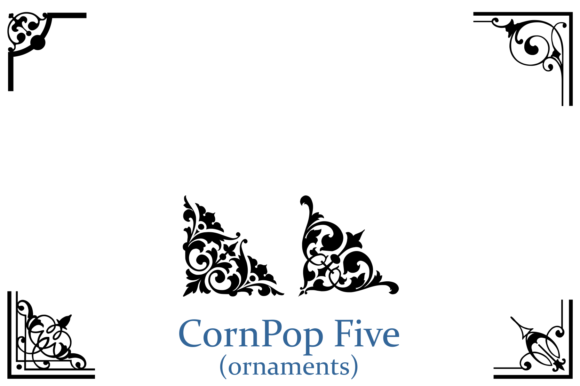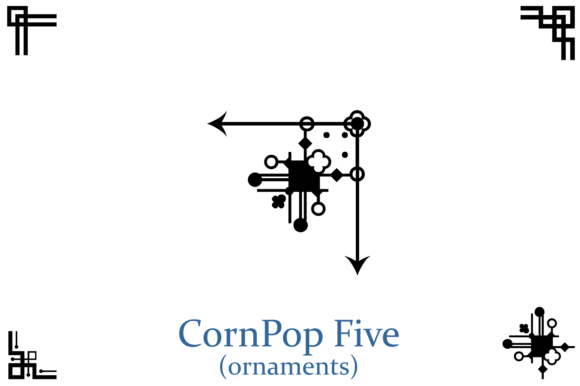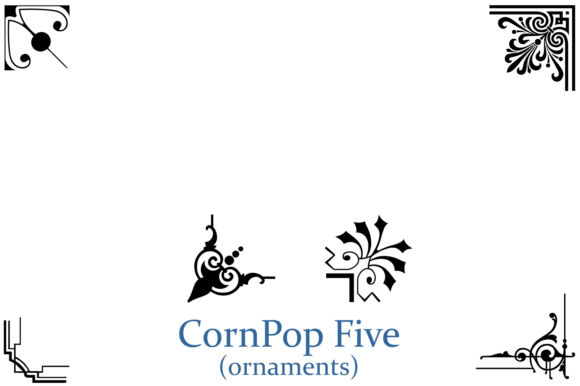
Corn Pop Five Font: A Comprehensive Guide for Designers and Crafters
The Corn Pop Five Font is a versatile and creative font that has gained popularity among designers and crafters. One of its standout features is the inclusion of corner ornaments, which can be used to create beautiful and unique invitations, cards, and other paper crafts. In this article, we’ll explore the Corn Pop Five Font in detail, discussing its features, uses, and benefits for designers and crafters.
What is Corn Pop Five Font?
Corn Pop Five Font is a digital font designed by a renowned font creator. It’s a modern, yet elegant font that features a distinctive and playful style. The font comes with a range of characters, including uppercase and lowercase letters, numbers, and punctuation marks. What sets it apart, however, is the inclusion of corner ornaments, which can be used to add a decorative touch to various designs.
Corner Ornaments: A Unique Feature
The Corn Pop Five Font contains a set of corner ornaments that can be used to create beautiful borders, frames, and other design elements. These ornaments are carefully crafted to match the font’s playful and elegant style, making them perfect for a range of applications, from invitations and cards to scrapbooking and other paper crafts. The corner ornaments are ready-to-use elements that can save designers and crafters time and effort, while also adding a professional touch to their work.
Uses of Corn Pop Five Font
The Corn Pop Five Font is a versatile font that can be used for a variety of purposes. Here are some of the most popular uses:
- Invitations: Create beautiful and unique invitations for parties, weddings, and other special occasions using the Corn Pop Five Font and its corner ornaments.
- Cards: Design personalized cards for birthdays, holidays, and other events with the font’s elegant and playful style.
- Scrapbooking: Use the Corn Pop Five Font to add titles, captions, and other text elements to your scrapbook pages, and decorate them with the corner ornaments.
- Paper Crafts: Create custom paper crafts, such as gift tags, journal pages, and other DIY projects, using the font and its ornaments.
The Corn Pop Five Font offers several benefits for designers and crafters:
- Time-Saving: The font’s corner ornaments are ready-to-use elements that can save designers and crafters time and effort.
- Professional Look: The font and its ornaments can add a professional touch to designs, making them perfect for commercial and personal projects.
- Versatility: The Corn Pop Five Font can be used for a range of applications, from invitations and cards to scrapbooking and paper crafts.
To get the most out of the Corn Pop Five Font, here are some tips and inspiration:
- Experiment with Different Colors: Try pairing the font with different colors and patterns to create unique and eye-catching designs.
- Mix and Match Ornaments: Combine the corner ornaments in different ways to create custom borders and frames.
- Use the Font for Titles and Headings: Use the Corn Pop Five Font to create bold and eye-catching titles and headings for your designs.
In conclusion, the Corn Pop Five Font is a versatile and creative font that offers a range of possibilities for designers and crafters. Its corner ornaments are a unique feature that can add a decorative touch to various designs, making it perfect for invitations, cards, scrapbooking, and other paper crafts. With its ease of use, versatility, and professional look, the Corn Pop Five Font is a great addition to any designer’s or crafter’s toolkit.